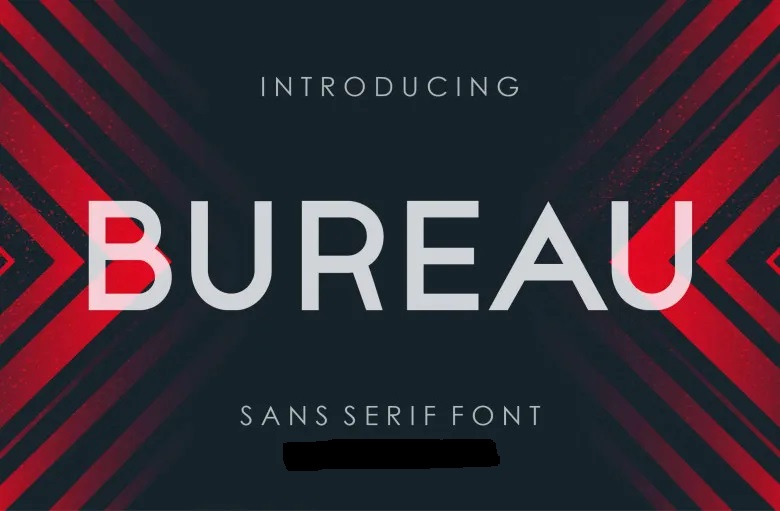
Bureau Font
Bureau is a modern sans-serif font that adds a stylish touch to any project. It works well for elegant logos, branding, travel ads, magazine layouts, beauty products, packaging, quotes, or as a sleek text overlay on any background.
Bureau Sans Serif Font